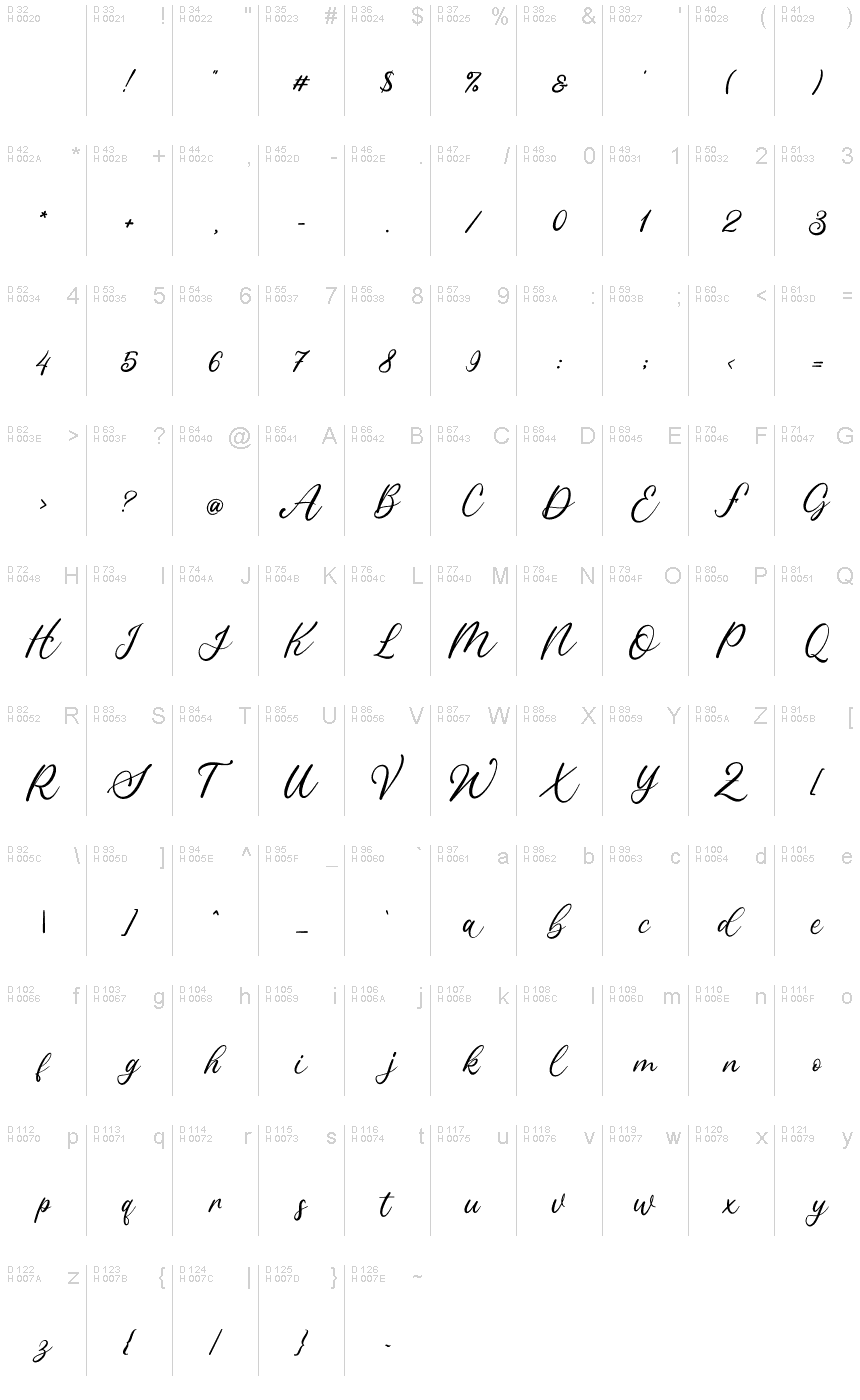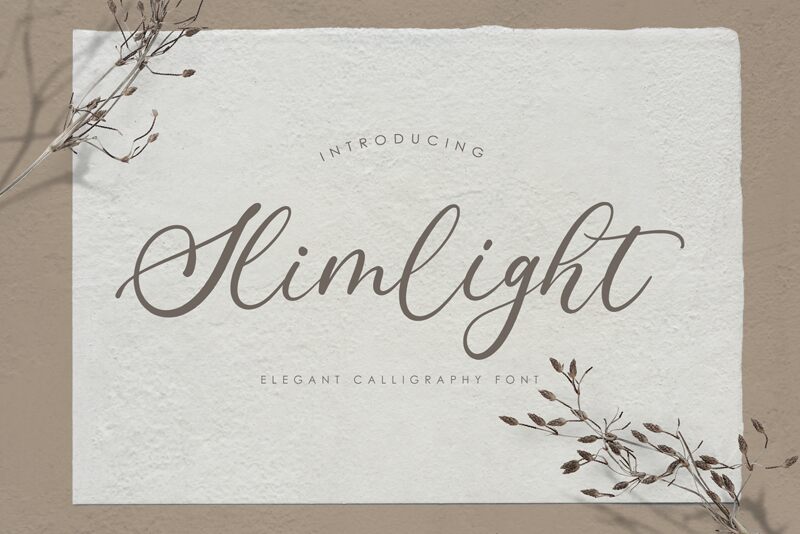
Slimlight Demo
Introducing Slimlight, the stunning calligraphic font designed by Rochart Studio. With its delicate strokes and exquisite curves, Slimlight oozes elegance and sophistication. This light-weight font is perfect for creating beautiful invitations, greeting cards, or adding a touch of class to your branding projects. Its graceful style makes it a popular choice for wedding stationery, luxury packaging, and high-end fashion brands. Let Slimlight elevate your designs to new heights with its timeless beauty and refined aesthetic. Try it today and see how it can transform your next project into a work of art!